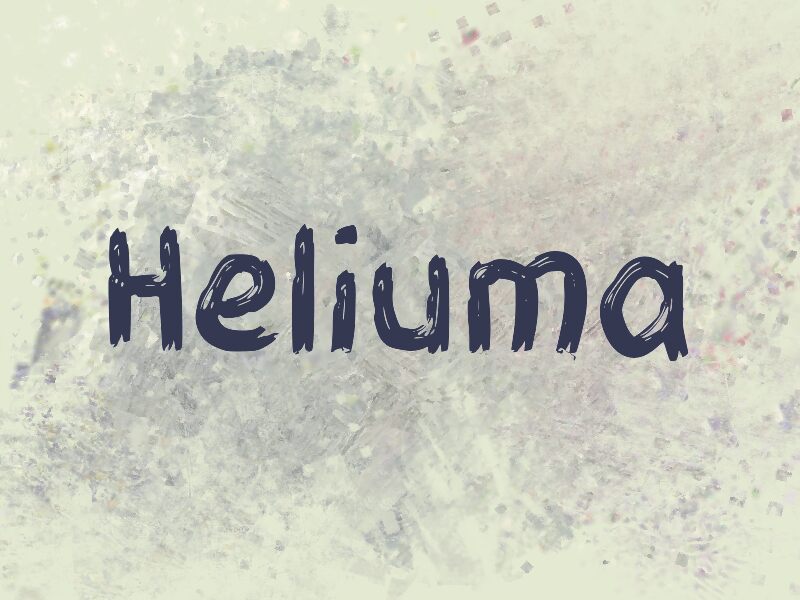
Heliuma
Heliuma font by wep features a brush-like texture that creates an expressive look. With imperfect lines, this free script font is ideal for artists and designers. Its dynamic appearance defies geometric borders and standard shapes, bringing energy and vibrancy to your projects.
Create artistic posters, product packaging designs, clothing items, prints for merchandise (pins and badges), sticker collections, or notebook covers with this exceptional font. Use the versatile letters in colorful branding projects or for typography artwork; handwritten quotes or names that can appear on postcards as well as invitation cards (for special occasions).
Heliuma is a unique typeface designed for modern applications. This font features a balanced combination of geometric shapes and organic curves, making it versatile for various design projects.